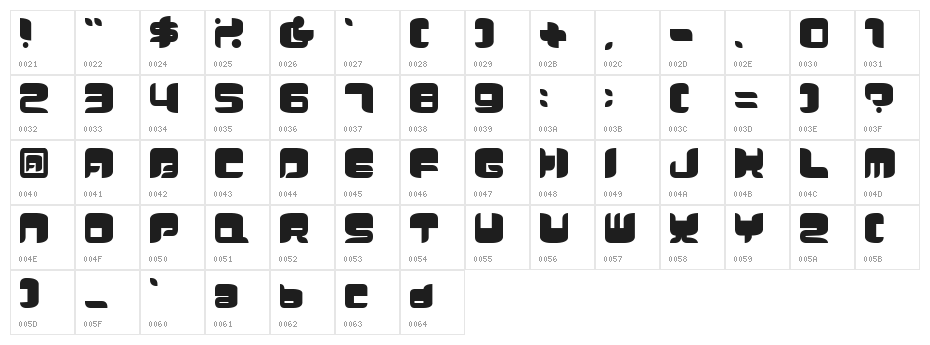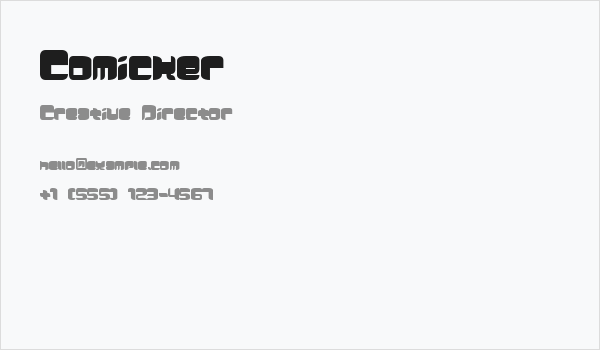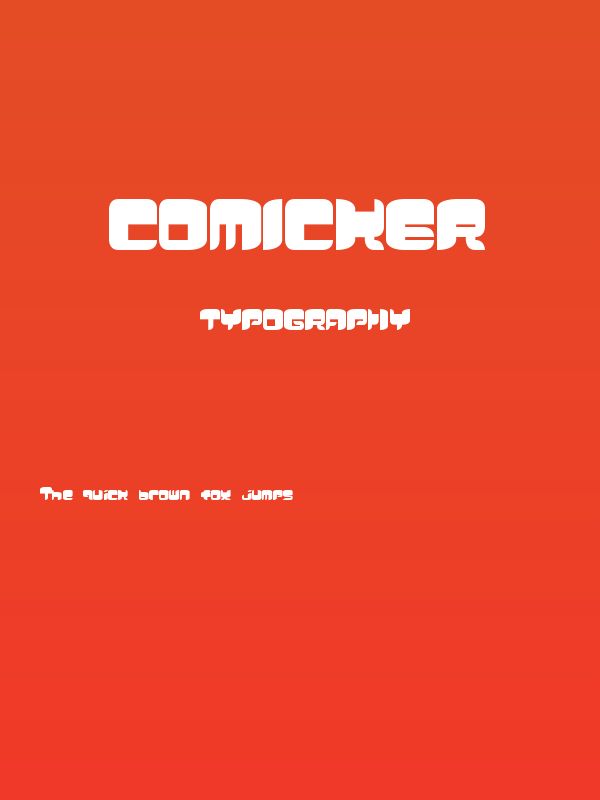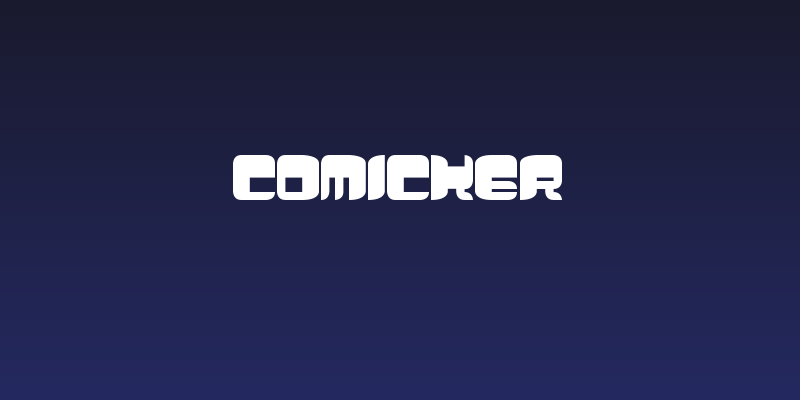
Comicker Font
Comicker Description
This font features a bold and playful design, characterized by its thick, rounded letterforms and unique cut-out details. The characters are wide and have a strong presence, making them ideal for attention-grabbing headlines. The style is reminiscent of comic book lettering, with a modern twist that adds a sense of fun and creativity. The uppercase and lowercase letters maintain a consistent weight, while the numbers and special characters are designed to complement the overall aesthetic. The font's distinctive style makes it suitable for projects that require a bold and dynamic visual impact.
| Proposed Projects | Ideal for comic books, children's books, posters, and playful branding. |